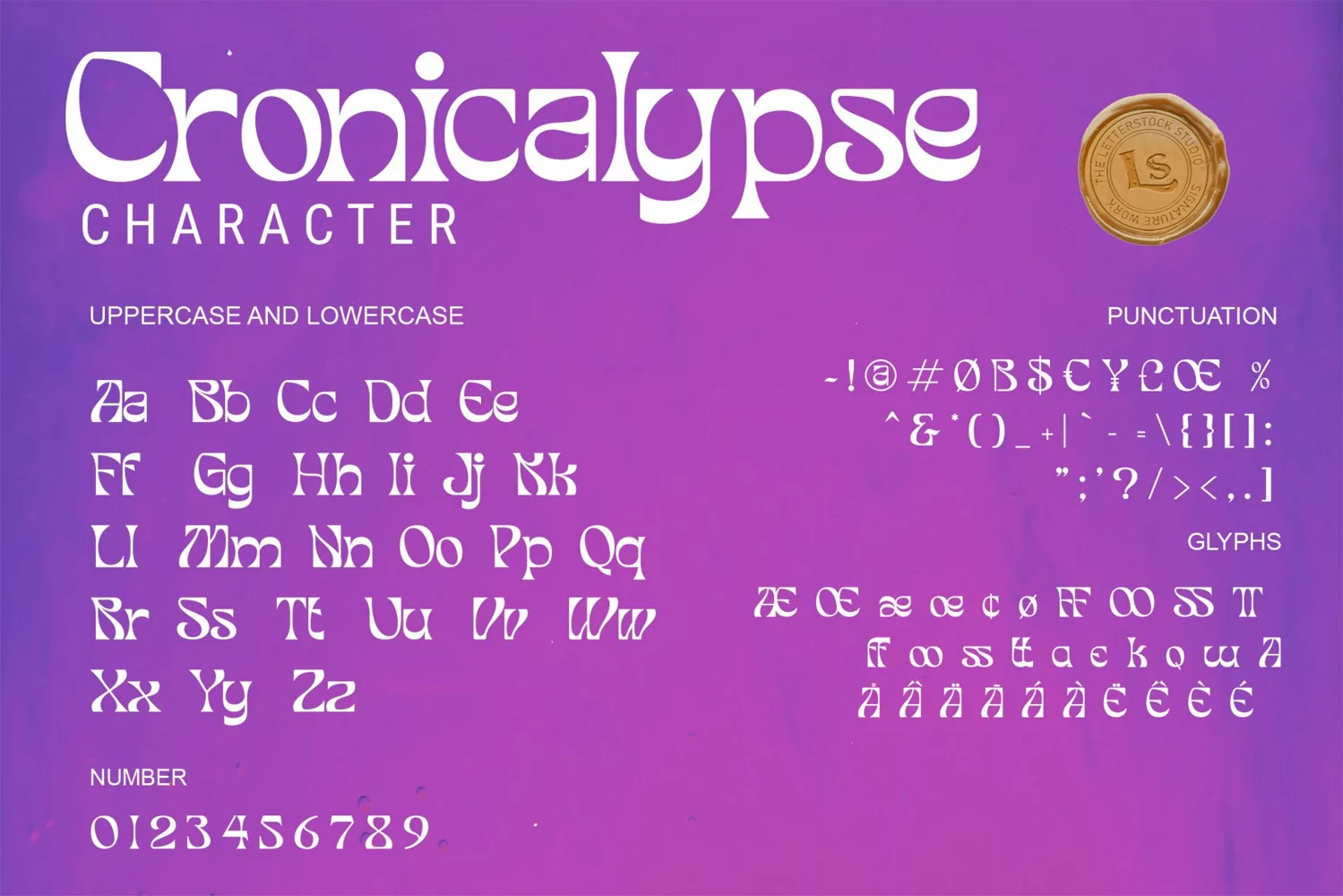
Cronicalypse
**Cronicalypse Font**
This pair was inspired by the retro pshycodelic poster design that i saw on some coffee shop, It was crafted by hand specially to add natural handmade feeling in its brand identity than i make it clean with pentool.
Cronicalypse font has 202 character set included
Cronicalypse Font is very good looking in logo, labels, product packaging, invitations, advertising and others.